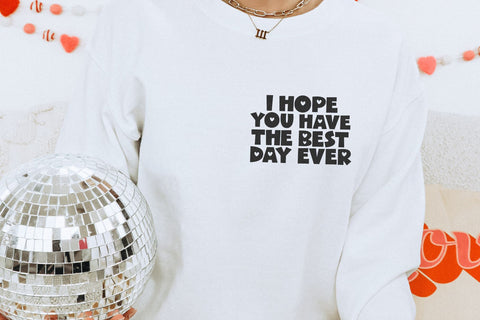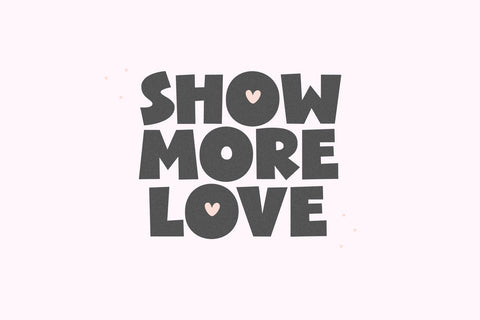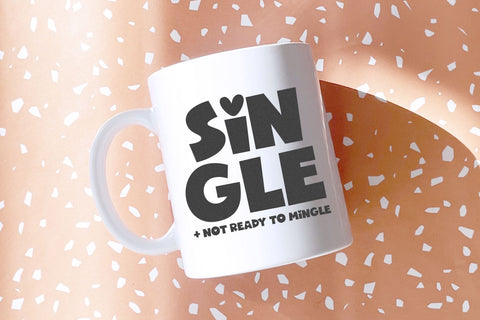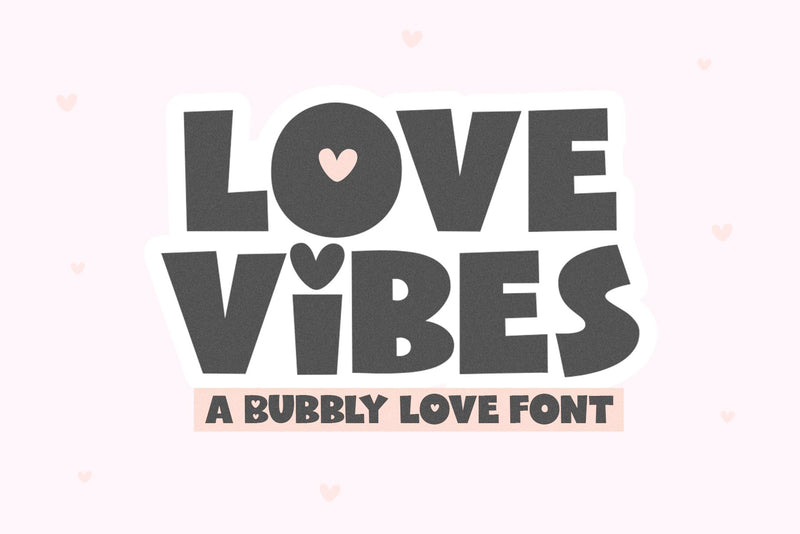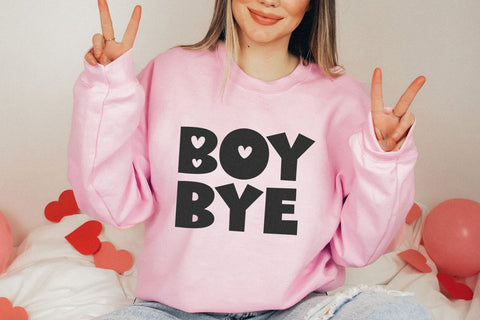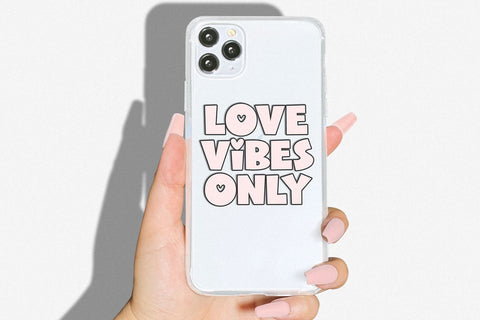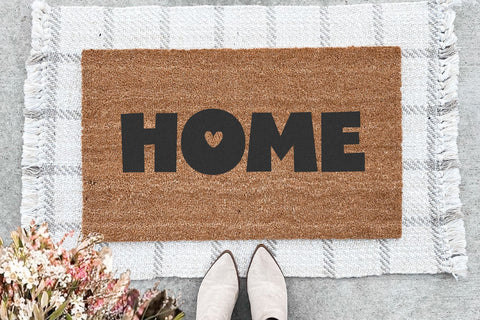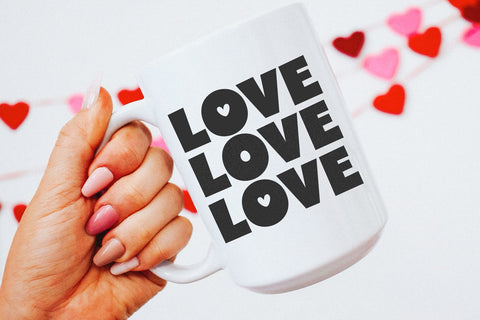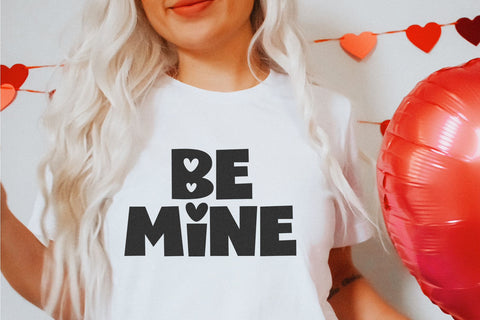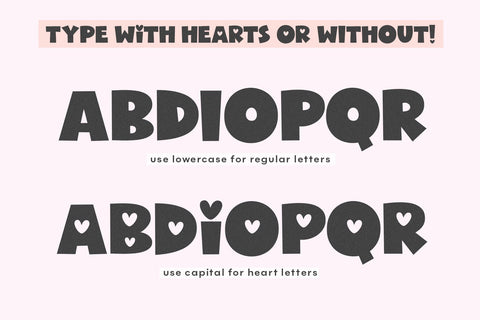
Love Vibes - Cute Block Font
Love Vibes is a cute font perfect for your Valentine's Day designs - or any design!
Use capital for standard letters - lowercase for heart embellishments
This font is perfect for your craft projects, svg files, shirts, mugs, stickers, signs, Valentine's Day projects and more!